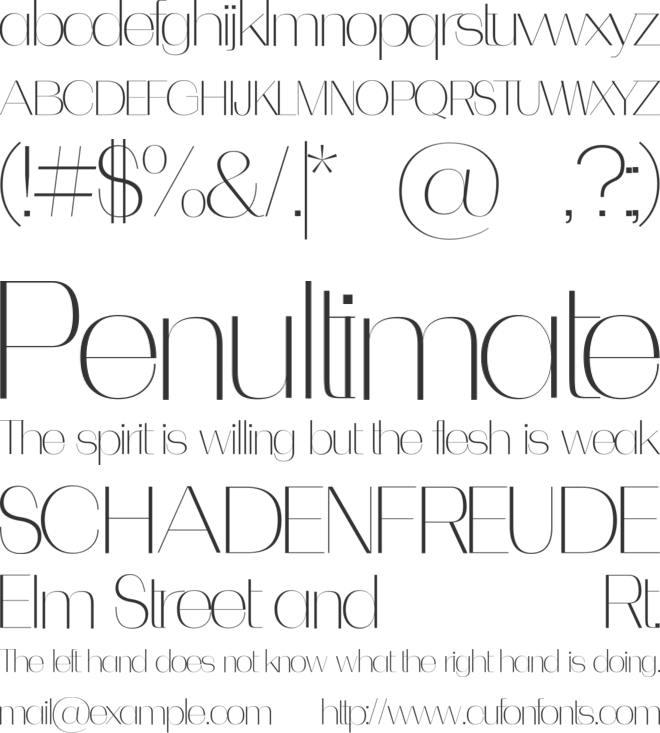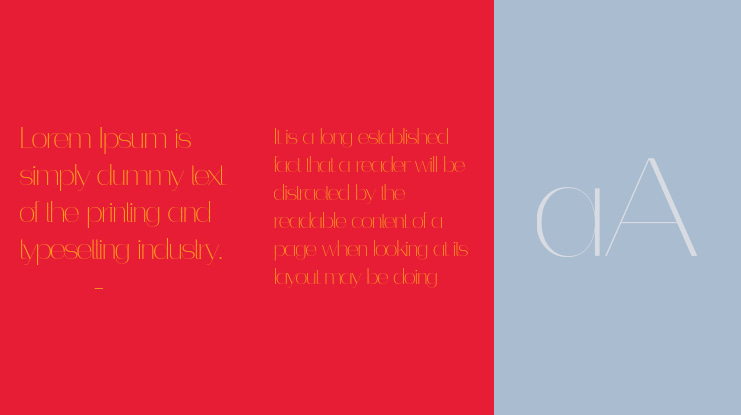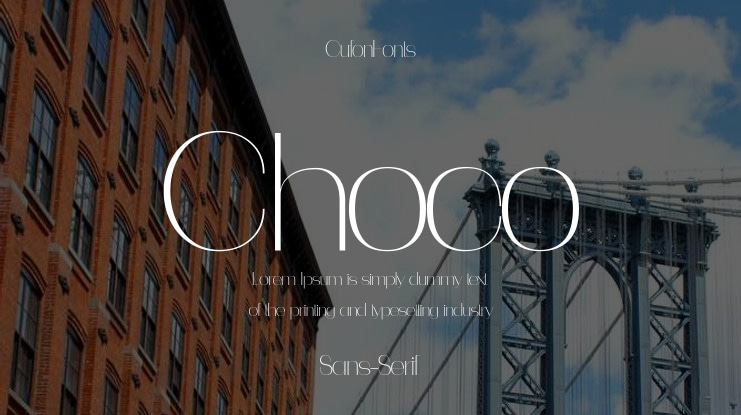
Choco Font Family
Choco is a rounded minimalist sans serif with over 600 glyphs and multilingual support—perfect for lifestyle branding, soft packaging, and modern editorial design.